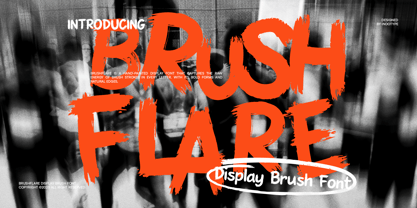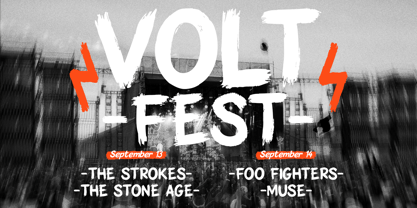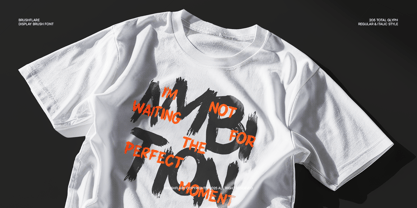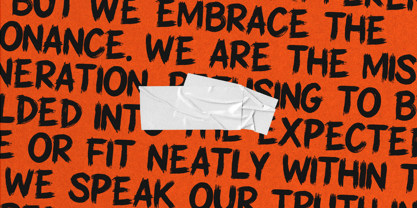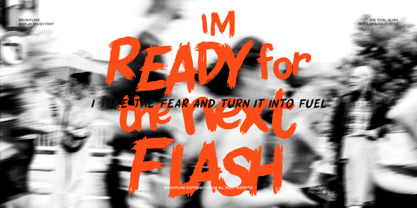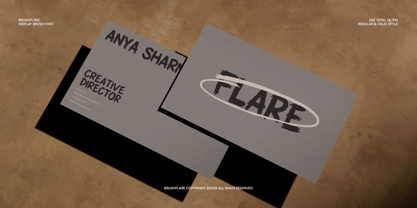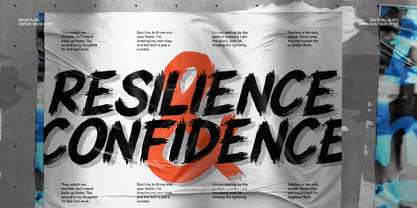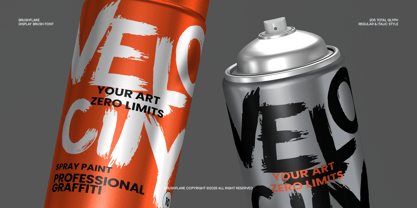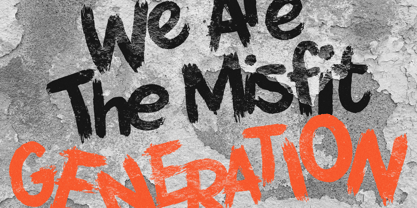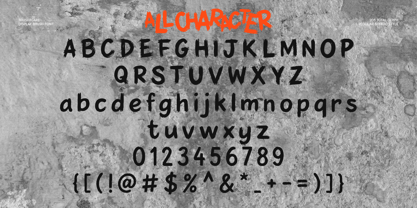
IT Brushflare
por Indotype
La familia tipográfica IT Brushflare fue diseñada por Frederik Aristaputra y publicada por Indotype. IT Brushflare contiene 2 estilos y opciones de paquete familiar. Más información sobre esta familia
Brushflare is a dynamic and unrestrained display brush font that captures the raw, immediate energy of a paint-loaded brush hitting a surface. Each letterform carries the visceral texture of bold strokes, natural edges, and spontaneous movement, creating an unmistakable aura of creativity and passion. This isn't a refined script—it's a burst of artistic expression frozen in type, designed to convey confidence, energy, and a DIY spirit. Perfect for projects that need to make a loud, authentic statement, Brushflare excels in poster design, album art, sportswear branding, event graphics, and any visual media that thrives on high-energy appeal. Its hand-painted character adds a layer of human touch and gritty authenticity that digital perfection can't replicate. Let your designs flare to life with the untamed spirit of Brushflare. • Ideal for: Music Posters, Album Covers, Sportswear & Streetwear, Event Graphics, YouTube Thumbnails, Action Sports Branding. • Classification: Display, Brush, Handwritten, Graffiti-Style. • Attributes: Energetic, Raw, Bold, Textured, Spontaneous, Athletic, Authentic.
Diseñadores: Frederik Aristaputra
Fundición: Indotype